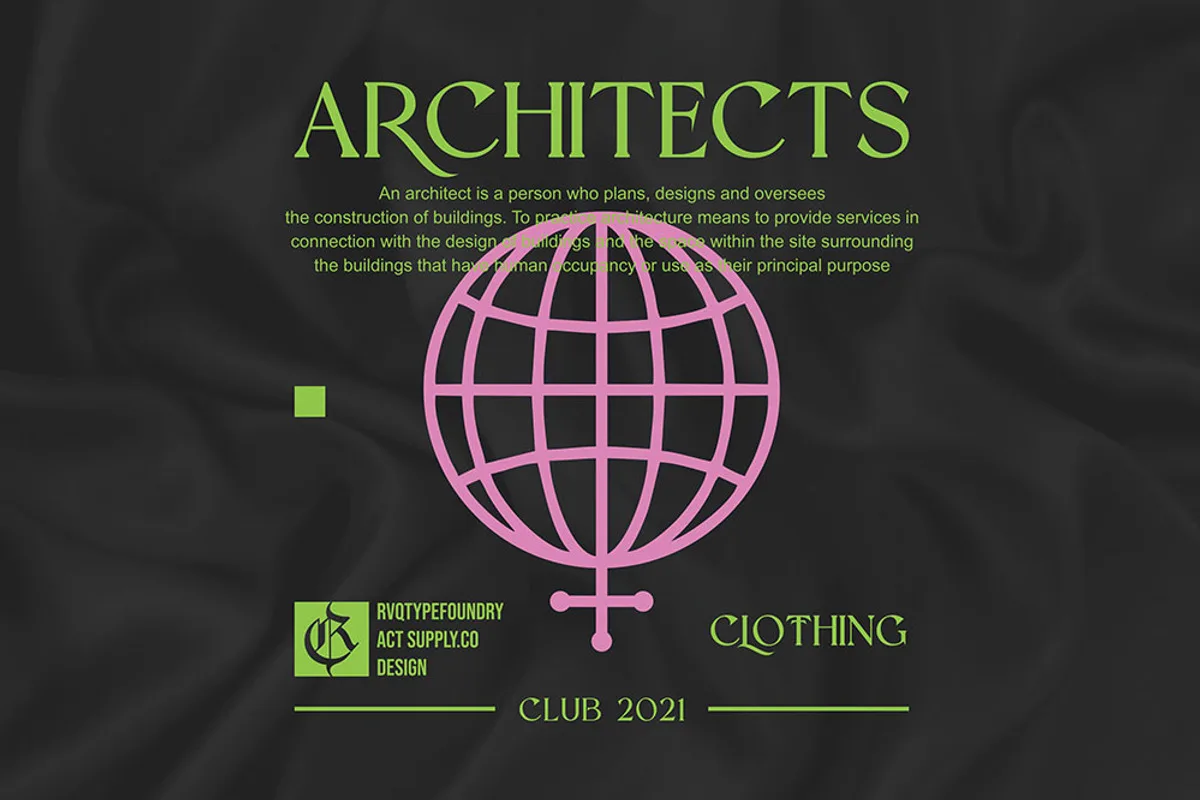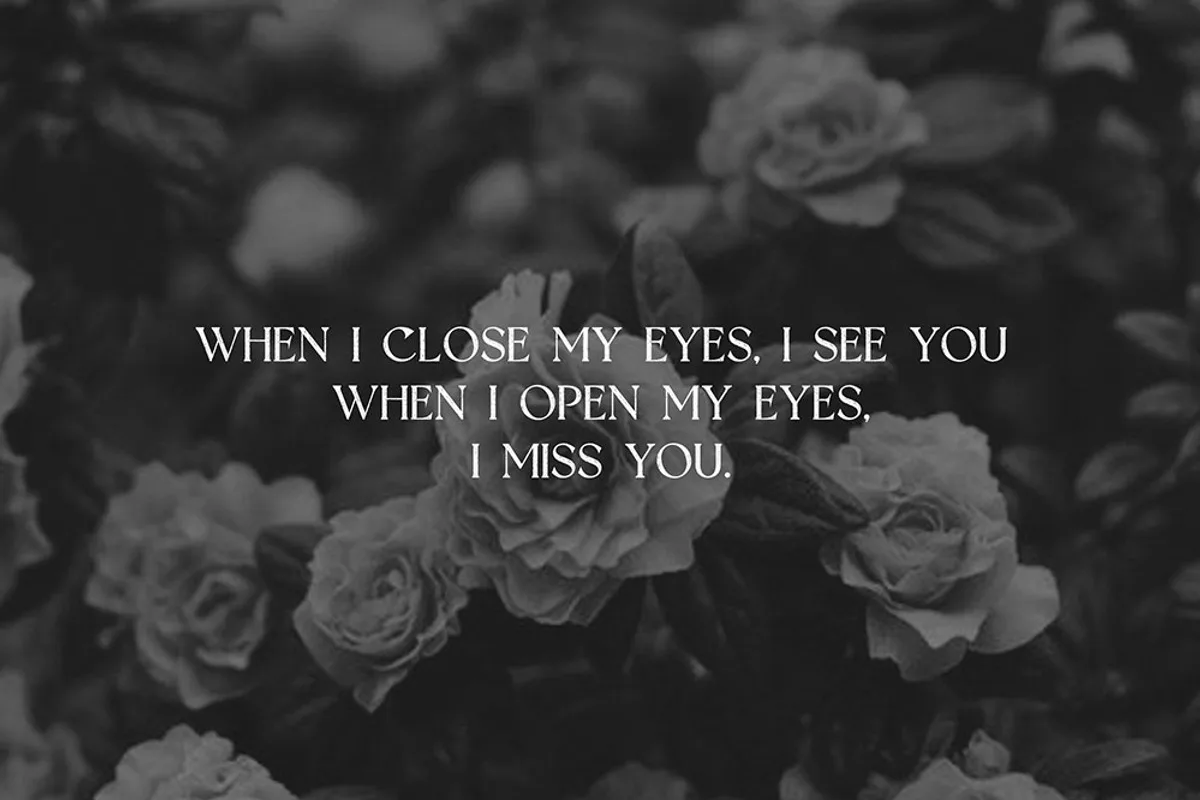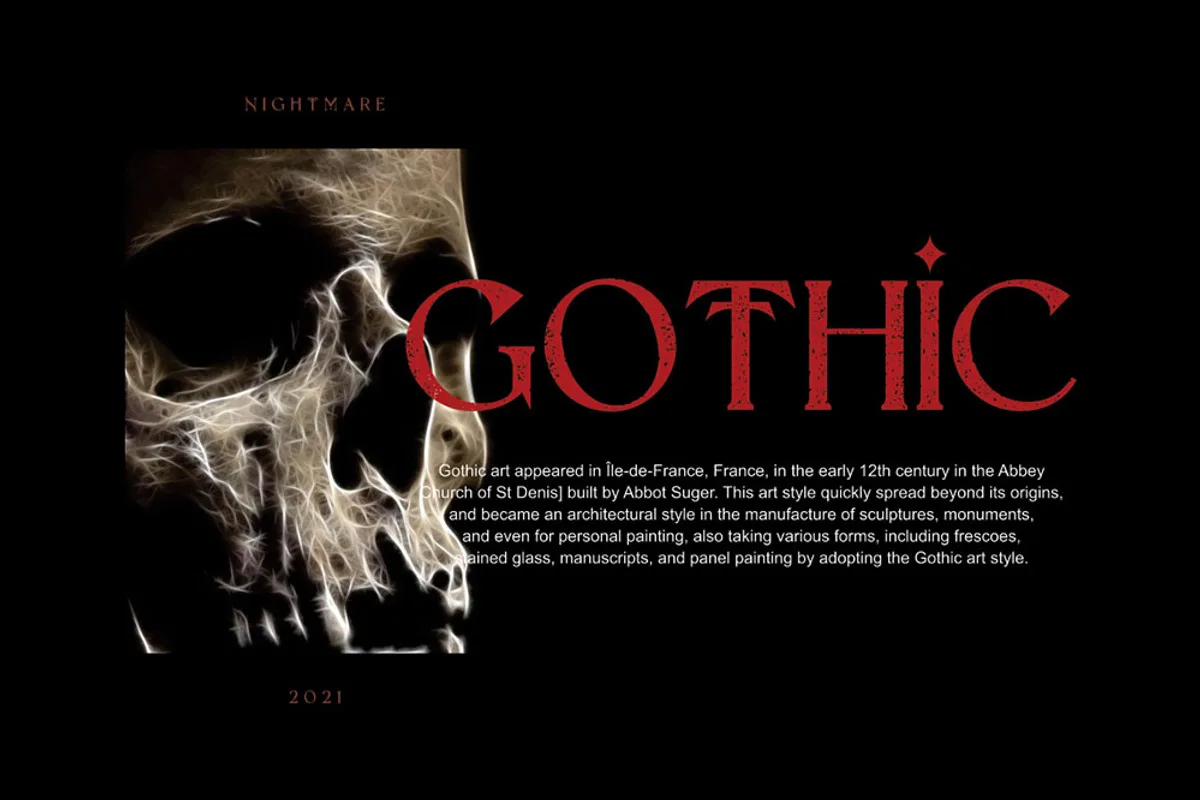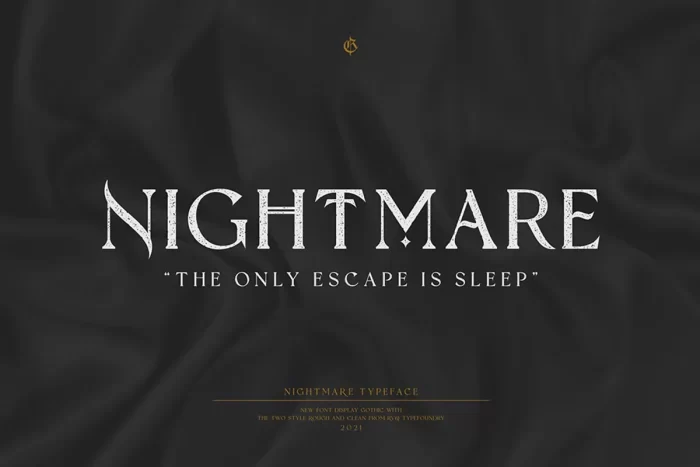
Nightmare Gothic is the new font from Rvq typefoundry ,was created as a dual-purpose font To create the beautiful combination, just mix your words with the alternative glyphs. Nightmare Gothic includes a full set of capital and lowercase letters, as well as multi-lingual support, currency figures, numerals, punctuation & some extra glyps. Perfect for : for Branding, Logos, Greeting Cards, Stationery Design, Invitations, T-shirts, Apparel, Packaging designs, Posters, Typographic Design, and so much more..